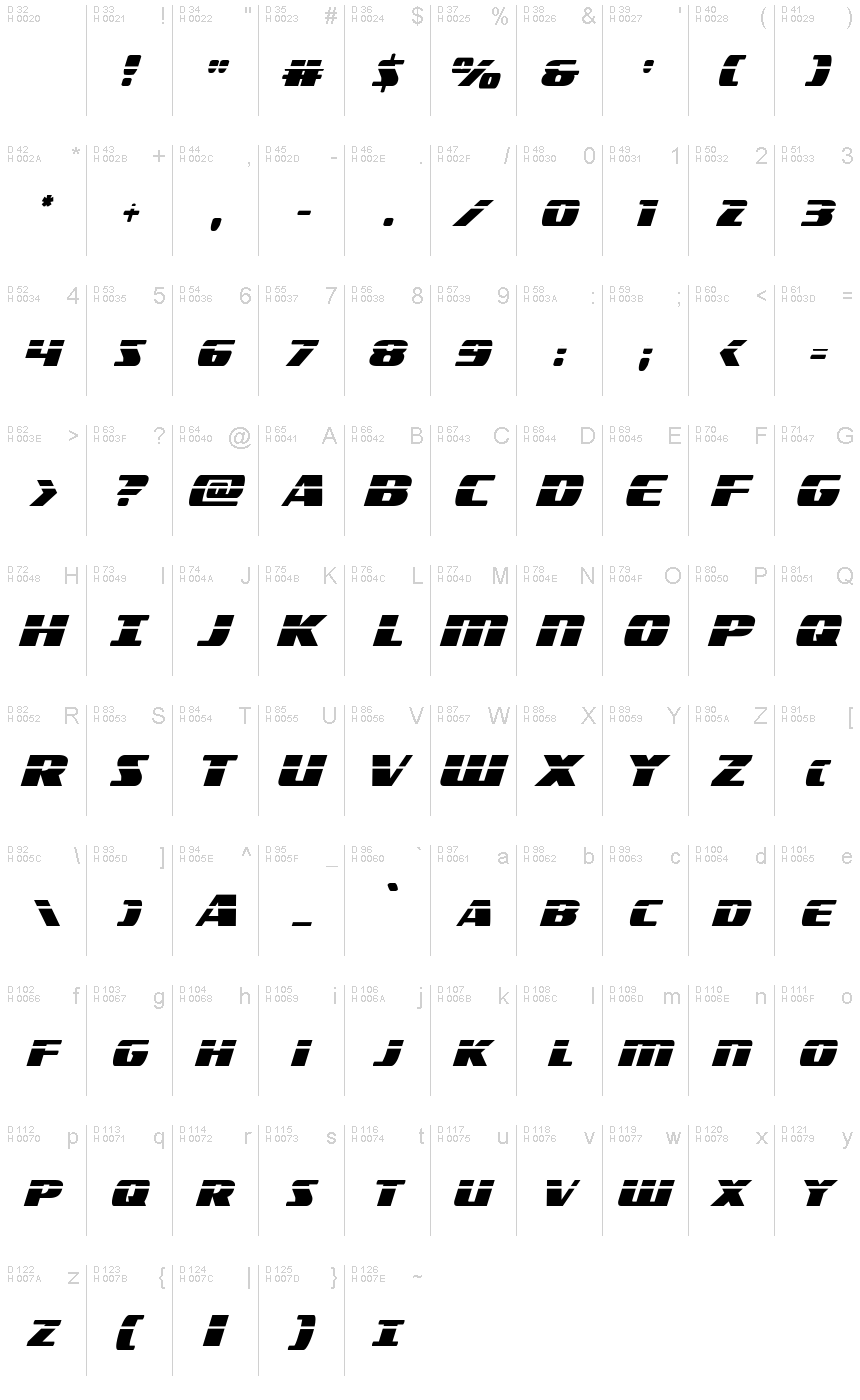
Americorps Laser Condensed by Iconian Fonts is a free modern display font with an aggressive forward slant. Its broad, tightly fitted letters use sharp diagonal cuts and extended horizontal openings that slice deep into the forms. Repeated breaks give the lettering a fast, engineered profile.
Motorsport branding is its clearest role. The slanted silhouette also suits esports graphics, action-film posters, and game interfaces with a science-fiction theme of speed, machinery, and high-tech competition.
Americorps Laser Condensed